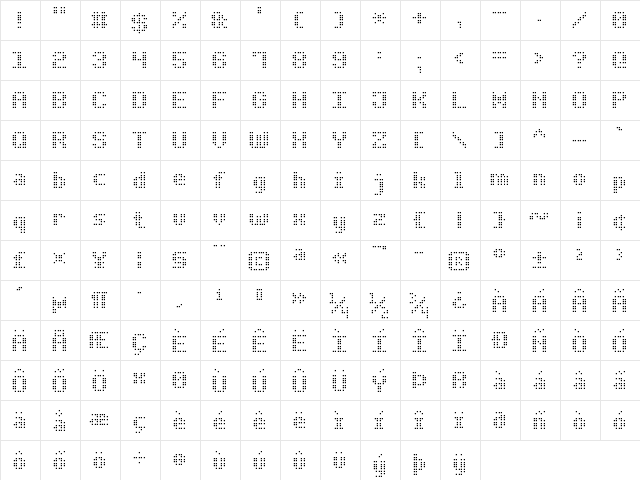
Bold Dot Digital-7 Regular
| Foundry | Style-7 |
| Designer | Sizenko Alexander |
Design Context for Bold Dot Digital-7 Typeface
Bold Dot Digital-7 channels digital-age aesthetics through its sharp, structured letterforms — ideal for brands that want to signal innovation. The heavy weight commands attention and anchors typographic hierarchies.